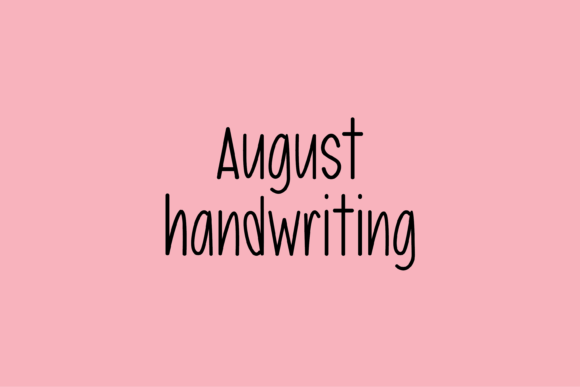
The August Font: A Simple yet Powerful Handwritten Font for Your Creative Projects
A Personal Review of August Font
What I Love About August Font
- ✨ Simple yet Friendly: August font is a beautifully crafted handwritten font that exudes warmth and approachability. Its simplicity makes it versatile for various design projects.
- ✅ Whimsical and Quirky: This font has a playful touch that adds a dash of personality to your designs. It’s perfect for projects that require a bit of whimsy.
- 💕 Perfect for Various Projects: From logos and wedding invitations to quotes, advertisements, and magazine layouts, August font is incredibly versatile.
While August font is fantastic, there are a few things to keep in mind:
- ⚠️ Limited Formality: Due to its handwritten nature, August font might not be the best choice for very formal projects or those requiring a high level of professionalism.
- 🤔 Legibility at Small Sizes: Like many handwritten fonts, August may become less legible at very small sizes. It’s best used at larger sizes or for headlines.
The Backstory of August Font
While the origins of August font are not well-documented, it’s clear that it was designed with the intention of bringing a touch of warmth and whimsy to design projects. The creator aimed to craft a font that felt both approachable and elegant, perfect for a wide range of applications. Whether used for a personal project or a client’s, August font is sure to leave a lasting impression.
Q: What type of projects is August font best suited for?
A: August font is versatile and can be used for logos, wedding invitations, quotes, advertisements, print materials, magazines, and more. It’s perfect for projects that require a friendly, yet elegant touch.
Q: Is August font suitable for body text?
A: While August font is beautiful, it’s best used for headlines or short paragraphs due to its handwritten nature. For longer body text, a more traditional font might be more readable.